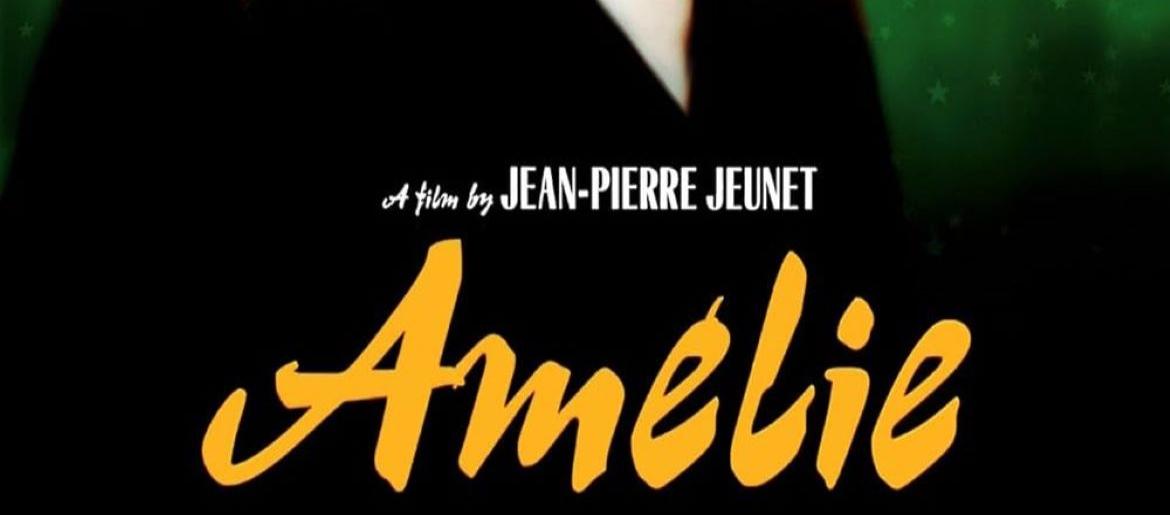
Amelie Font
The Amelie font captures the whimsical and romantic charm of Jean-Pierre Jeunet’s beloved French classic Amelie. The film’s title design features a handwritten-style script with a playful, organic flow that mirrors the quirky and imaginative nature of the main character. Its lettering feels warm and personal, perfectly reflecting the film’s dreamy atmosphere set against the streets of Montmartre. While there isn’t an official Amelie font released, many designers have created alternatives inspired by the movie’s iconic title, often leaning into calligraphy or casual handwritten styles with fluid strokes and imperfect curves.
For designers, fonts similar to the Amelie font are perfect for posters, wedding invitations, personal branding, or any artwork that seeks to evoke romance and whimsy. By using the Amelie font or its closest alternatives, you can infuse your designs with the same playfulness, warmth, and magical storytelling essence that made the film unforgettable.
About Amélie
Amélie (Le Fabuleux Destin d’Amélie Poulain) is a 2001 French romantic comedy film directed by Jean-Pierre Jeunet, starring Audrey Tautou as Amélie Poulain. Set in Montmartre, Paris, the film follows a shy waitress who decides to change the lives of those around her through small acts of kindness while struggling with her own isolation. Known for its vibrant cinematography by Bruno Delbonnel, whimsical storytelling, and accordion-driven score by Yann Tiersen, Amélie became a global phenomenon, receiving five Academy Award nominations and defining French cinema’s imaginative charm for international audiences.